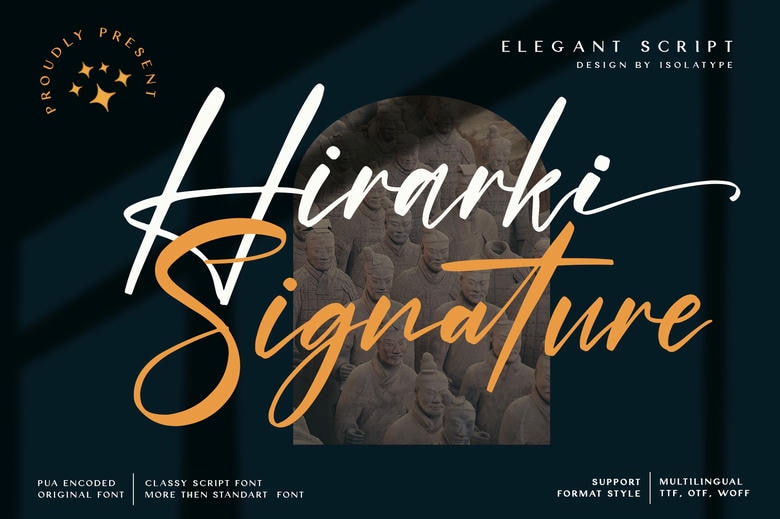
Hirarki Signature Font
Hirarki Signature is a slim font lettered and elegant script font. Fancy its sultry style and combine it to make beautiful designs. It is a PUA encoded font that allows you to easily get all the glyphs and swashes!